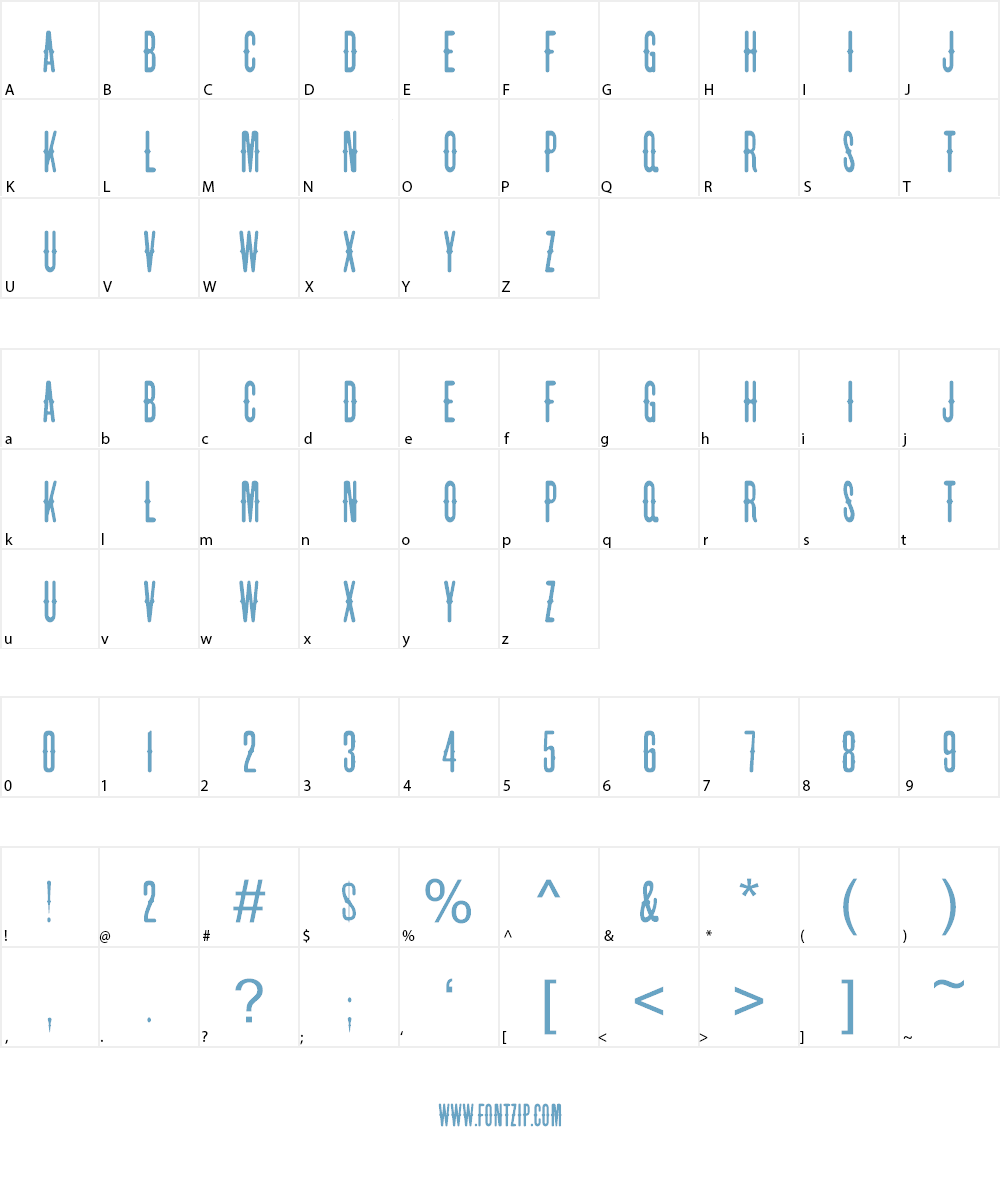
HFF Beer Van is based on the font on page 96 of the "Condensed
Alphabets: 100 Complete Fonts" by Dan X. Solo. It is also featured on
pages 36 and 38 of "The Solotype Catalog of 4,147 Display Typefaces" but
with slightly different names.